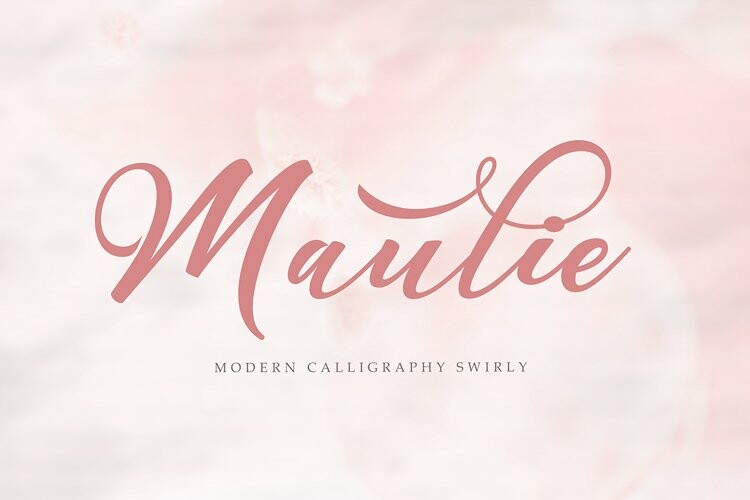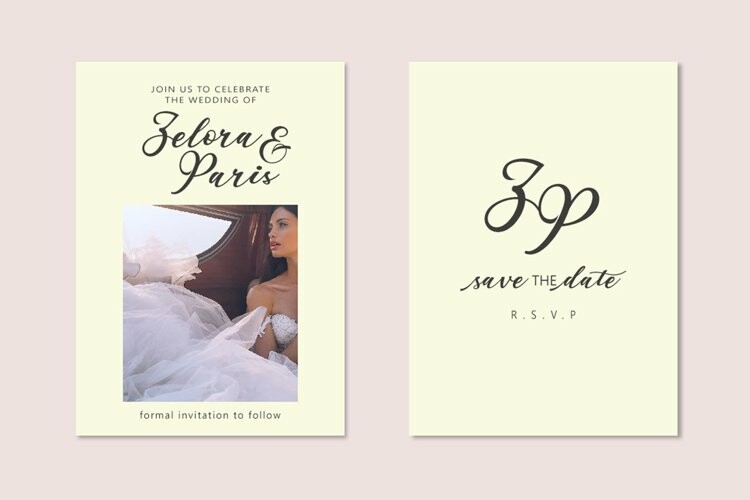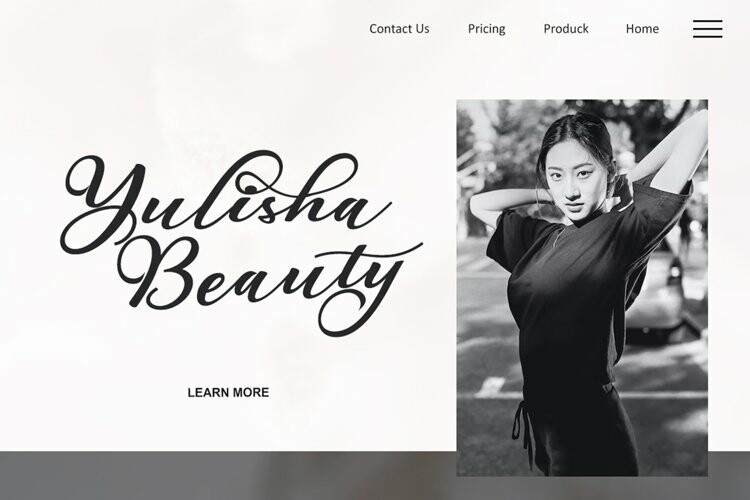
Maulie Script Font
Maulie Script FontIntroducing the new elegant Maulie Script! For those of you who need a touch of elegance combining classic style with modern calligraphy style for your design, this font is made for you!